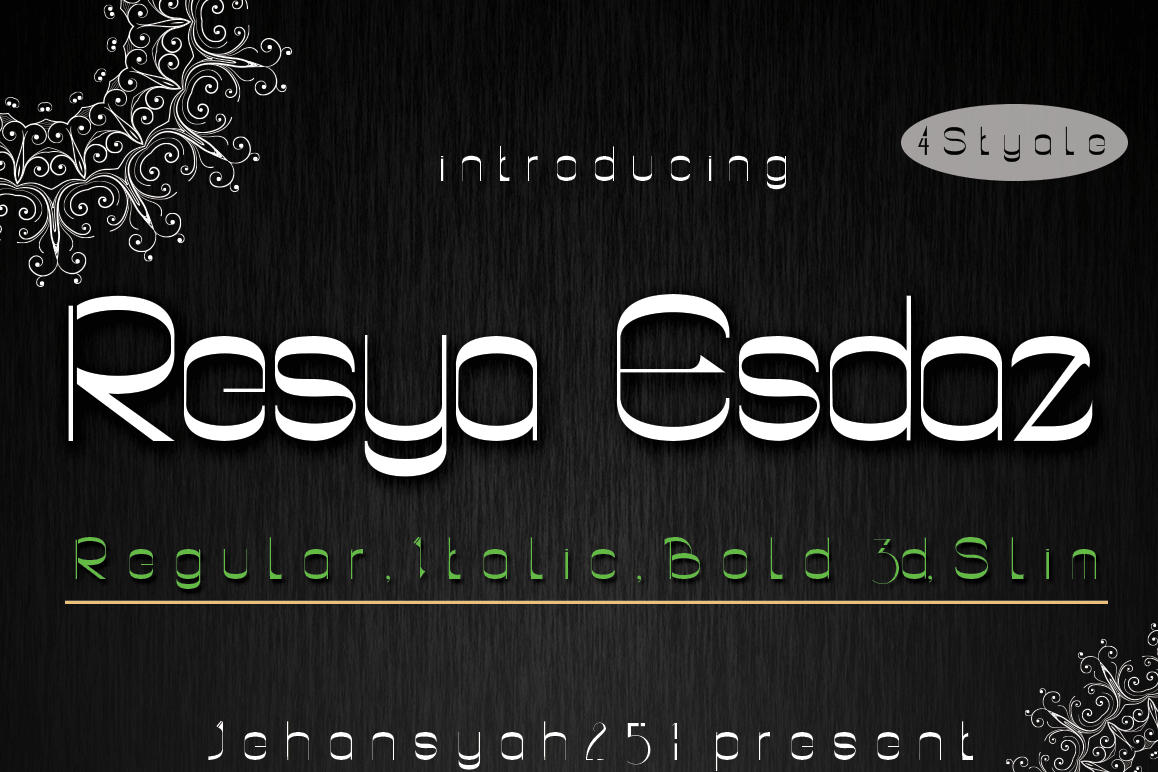
Rasya Esdaz
Rasya Esdaz This font was designed by handwriting, and it has a modern
and unique forms of calligraphy, the writing style is very natural and multiple
language support.
Languages supported: Breton, Catalan, Czech,
Danish, Estonian,French, German, Hungarian, Icelandic, Italian, Romanian,
Scottish Gaelic, Slovak, Latvian, Lithuanian, Norwegian, English, Finnish,
Polish, Portuguese, Slovenian, Spanish, Swedish, Turkish, Welsh. Basically, all
european languages that are based on latin alphabet.
Can be used for various purposes.such as
headings, logos, wedding invitation, t-shirt, letterhead, signage, lable, news,